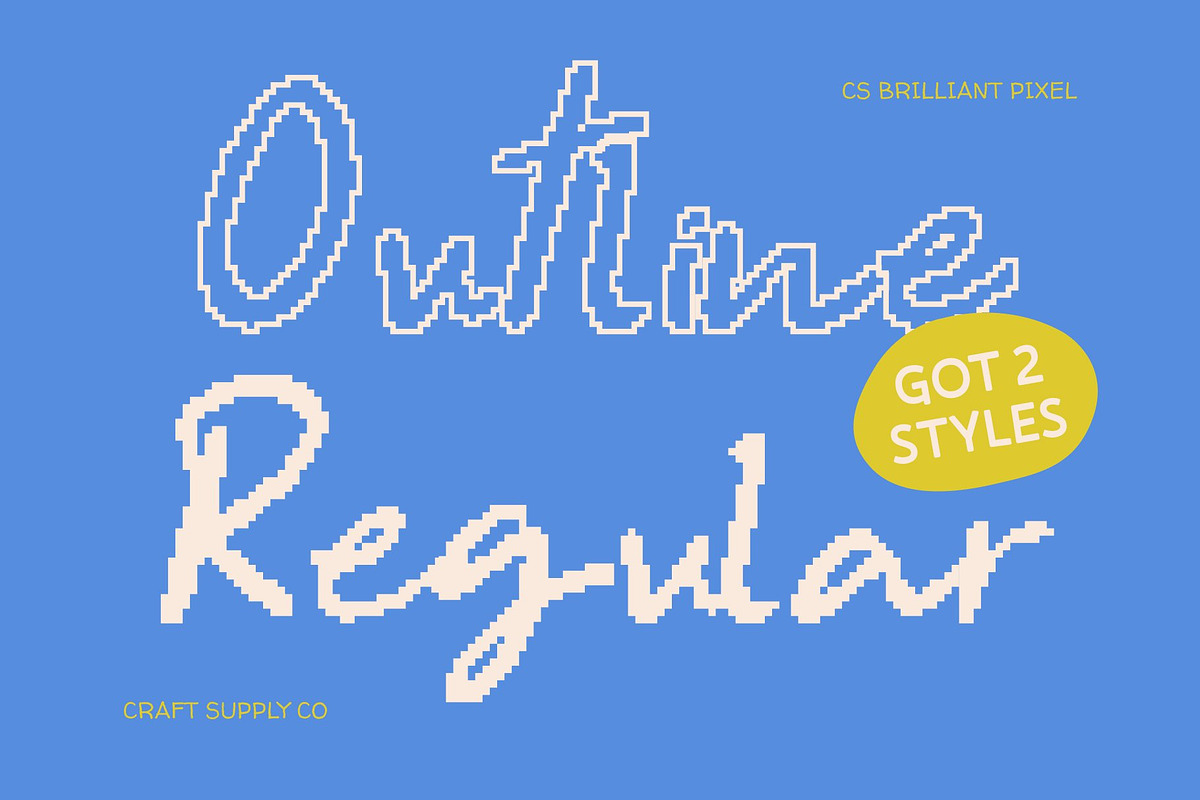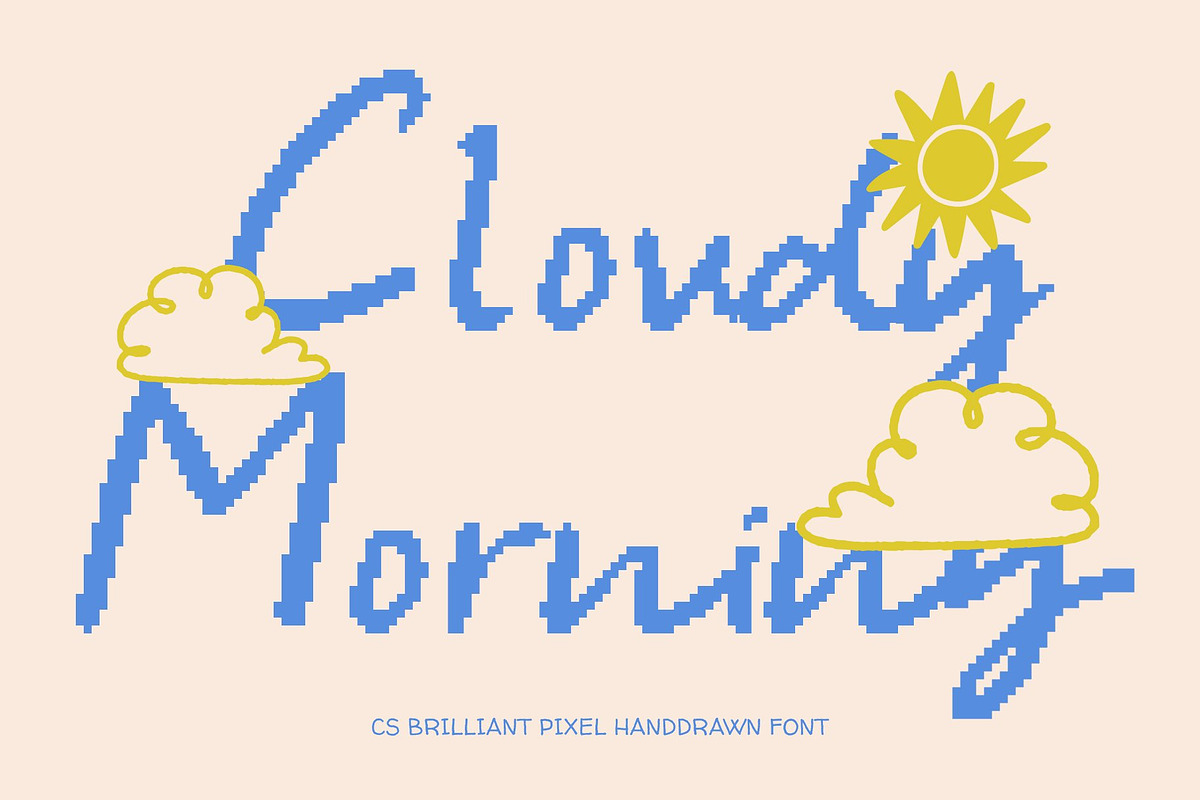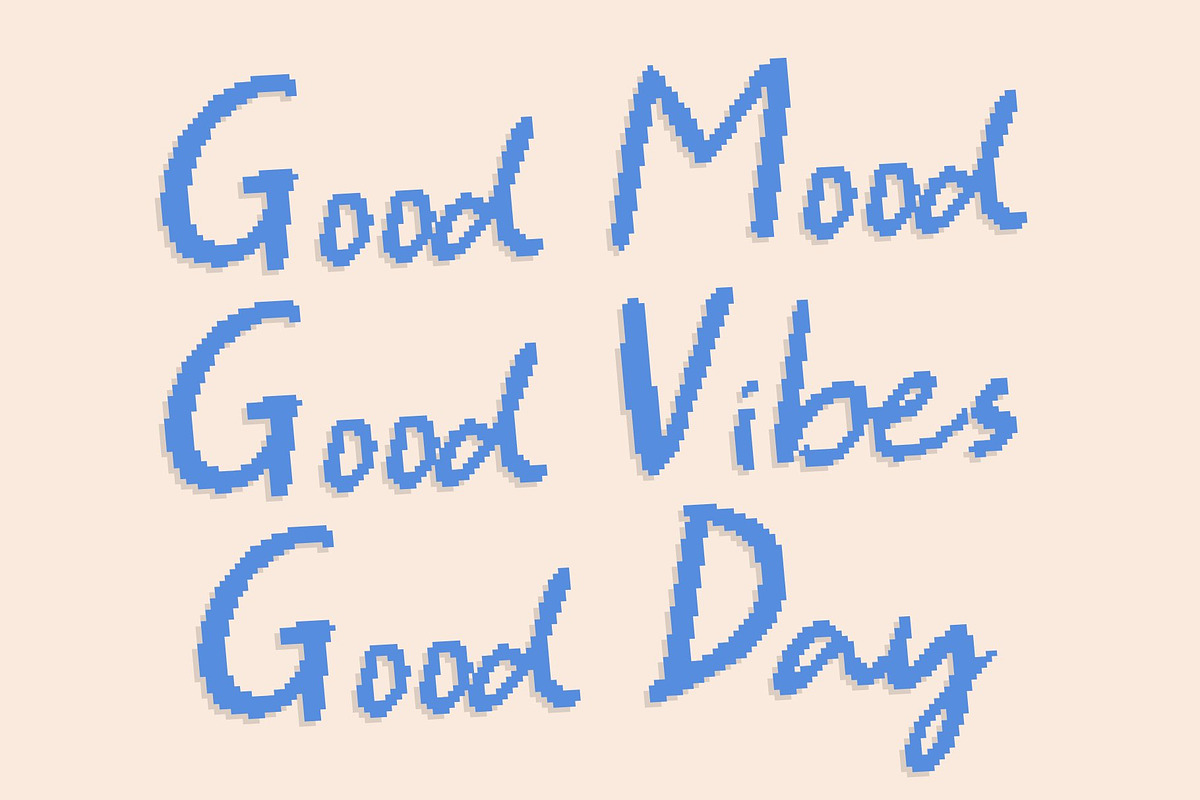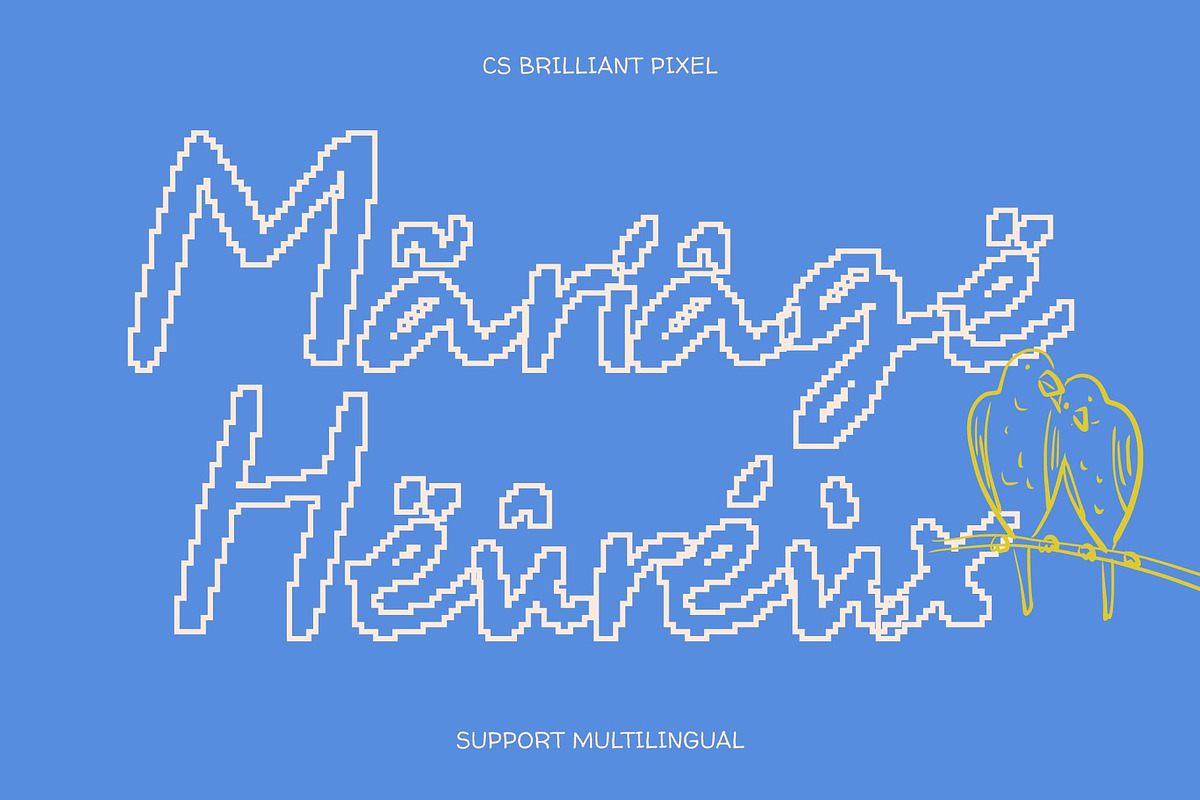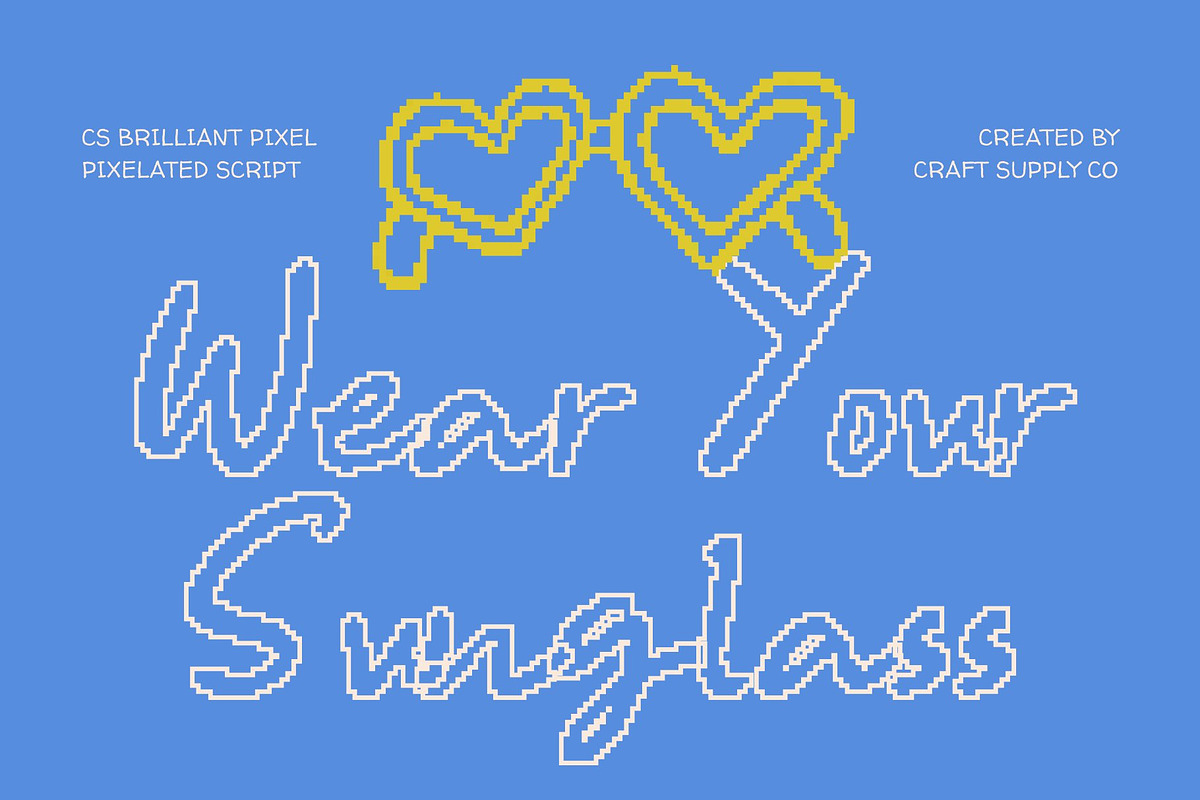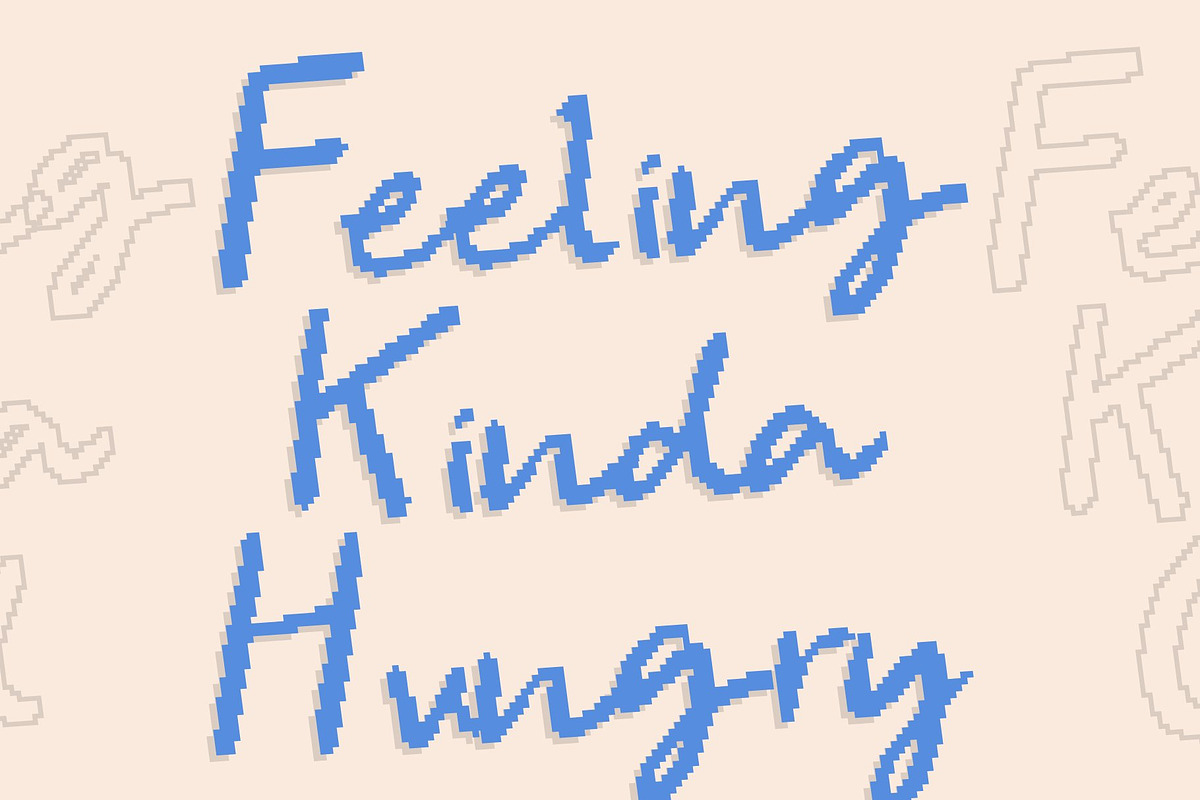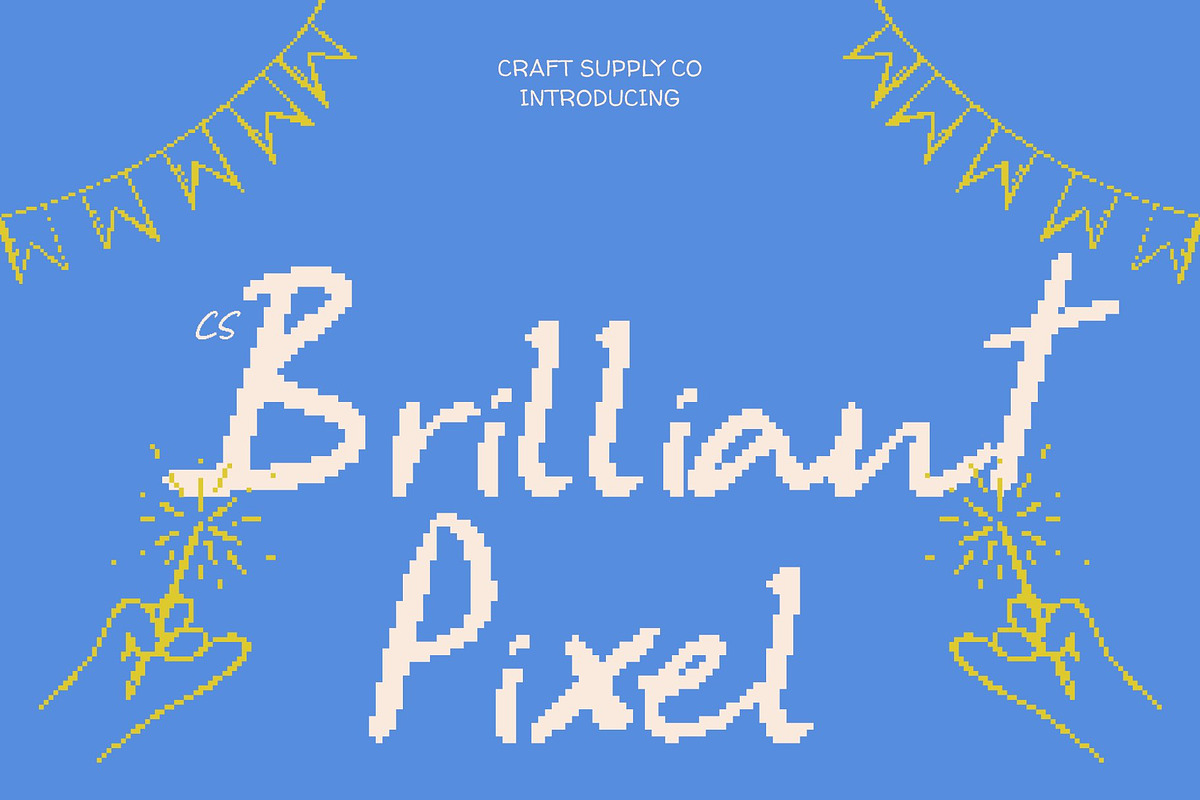
CS Brilliant Pixel
CS Brilliant Pixel – Handwritten Script with Natural Warmth
Soft Handwritten Script with Pixel Simplicity This is a handwritten script font that captures the beauty of natural pen strokes through a subtle pixel interpretation. Its smooth flow and gentle curves create a friendly, approachable appearance while maintaining a clean and modern feel. The pixel structure adds a soft digital nuance, allowing the font to feel expressive and personal without becoming messy or overwhelming.
Natural Pen Stroke Character with Digital Texture Inspired by real handwriting, each letter features organic curves and slight irregularities that reflect natural writing movement. These details are translated into a pixel-based form, adding warmth and texture while preserving clarity. The result is typography that feels human, relaxed, and emotionally engaging, perfect for designs that value authenticity and charm.
Expressive Yet Clear and Approachable Unlike overly decorative scripts, this font maintains a balanced structure that keeps text readable and visually tidy. Its script foundation delivers elegance and flow, while the pixel treatment ensures consistency across digital layouts. This combination creates a soft, expressive look that remains polished and intentional in both print and screen applications.
Perfect for Personal and Casual Creative Design This font is ideal for personal branding, quotes, casual invitations, lifestyle visuals, and creative social media content. Its warm handwritten personality paired with modern pixel simplicity brings sincerity and charm to any project. This font helps your message feel genuine, friendly, and thoughtfully crafted.
- CS Brilliant Pixel Regular
- CS Brilliant Pixel Outline